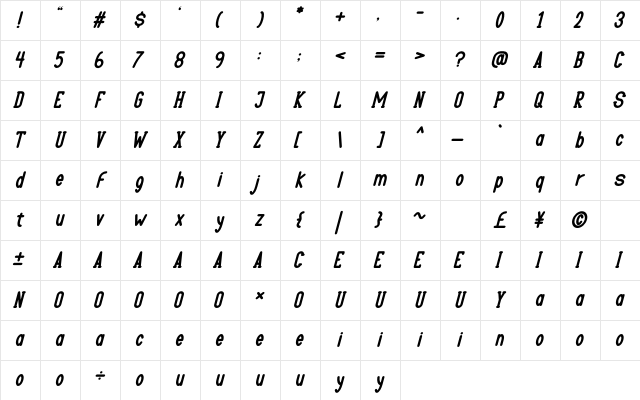
LOVI Italic
Design Context for LOVI
LOVI is a composed and adaptable typeface that performs quietly and consistently across a wide range of design contexts. The slanted form adds forward momentum and visual energy.